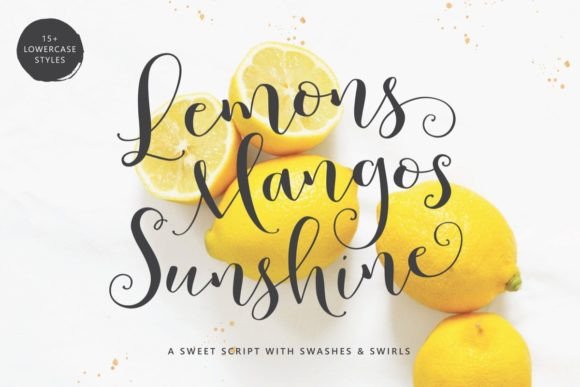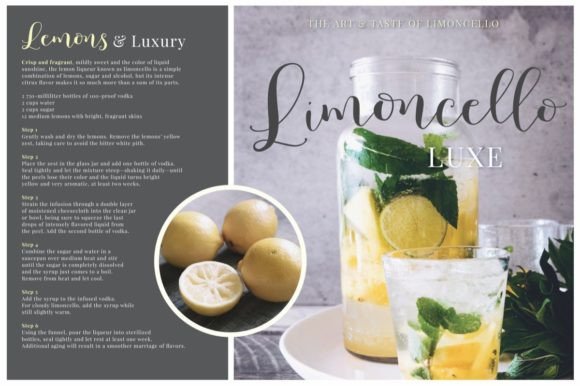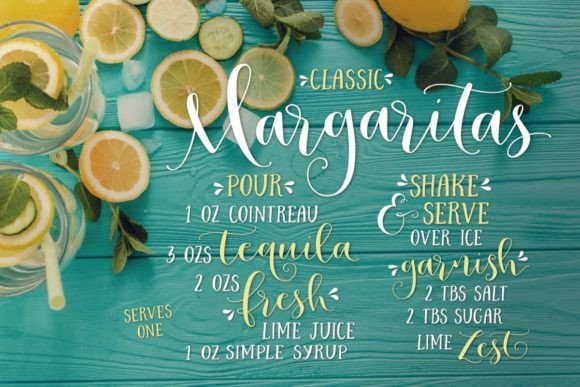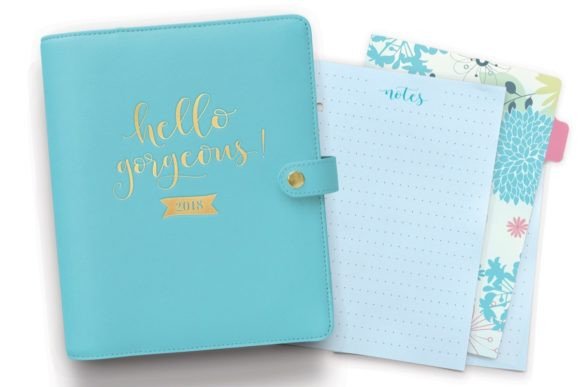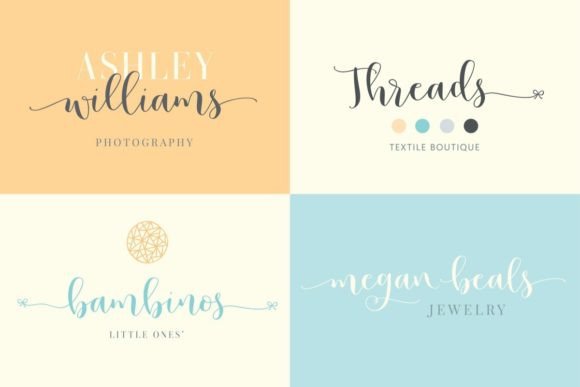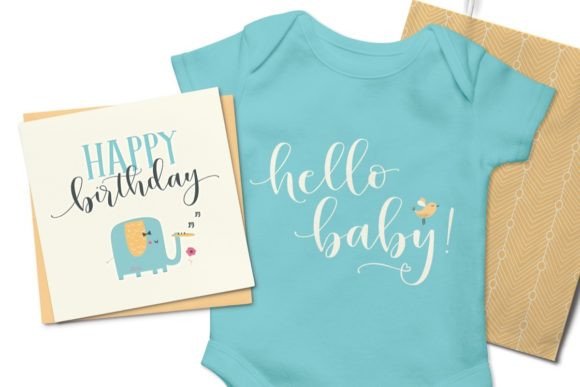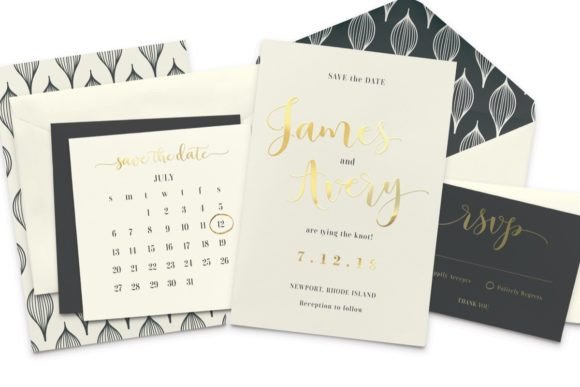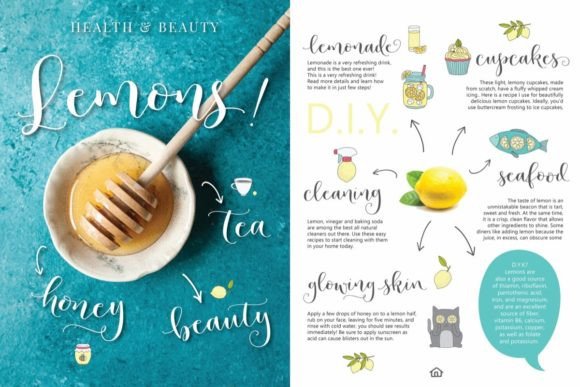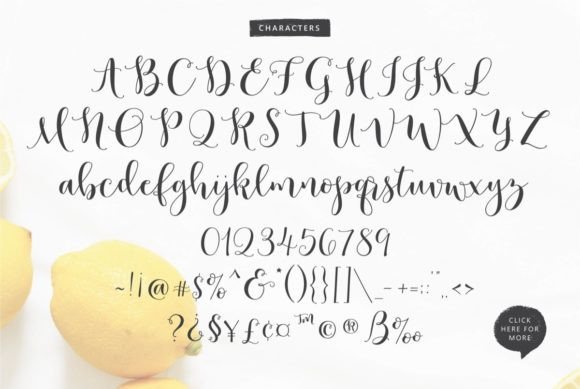
Lemons Mangos Sunshine Font
About Lemons Mangos Sunshine Font
Meet the all-new Lemons Mangos Sunshine hand-lettered script, meticulously crafted with care and a touch of painstaking dedication exclusively for you! This sweet and feminine script is a font lover’s dream, offering a treasure trove of 15+ playful lowercase styles. Brace yourself for an abundance of creative possibilities—everything you create with this font will be a completely unique work of art.
What sets Lemons Mangos Sunshine apart is its versatility. The font provides an extensive array of swashes and alternate characters, with over 15 lowercase styles to choose from. This abundance ensures that every project you embark on becomes a canvas for your creativity. Whether you’re working on invitations, branding, or any design project, Lemons Mangos Sunshine transforms your text into a visual masterpiece.
The combinations of swashes and alternate characters are nothing short of endless. Experiment with short and long swashes to tailor the script to all occasions, from the whimsical to the formal. What’s even more impressive is that the swashes are designed to seamlessly connect between words, creating a fluid and cohesive visual experience.
Lemons Mangos Sunshine doesn’t just stop at being visually appealing; it’s also user-friendly. PUA encoding ensures easy access to all the glyphs and swashes, putting you in control of the creative process. This feature allows you to effortlessly explore and incorporate the diverse elements Lemons Mangos Sunshine has to offer.
Imagine this font bringing a burst of sunshine to wedding invitations, where the playful styles add a touch of joy and personality. Picture it in branding, where the variety of swashes and styles allow you to tailor the script to the unique identity of your brand. With Lemons Mangos Sunshine, every project becomes an opportunity to showcase your creative flair.
In essence, Lemons Mangos Sunshine is not just a font; it’s a creative companion that empowers you to express your unique style with flair. Dive into the world of playful lowercase styles, endless swashes, and boundless creativity. Let Lemons Mangos Sunshine be the sunshine that brightens every project you undertake!